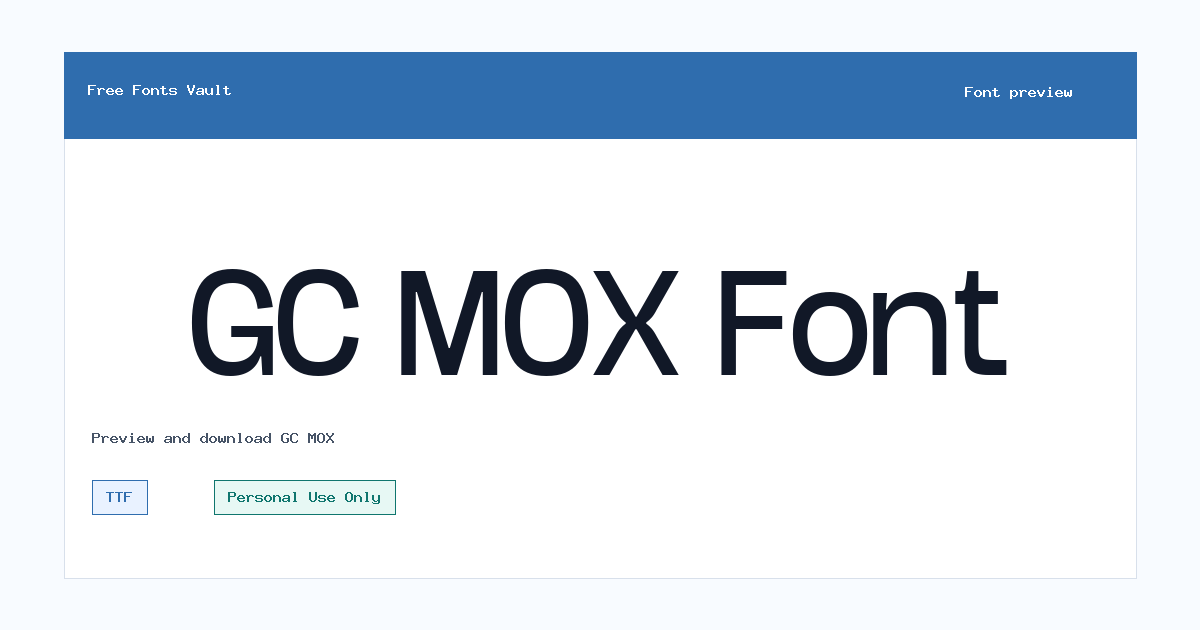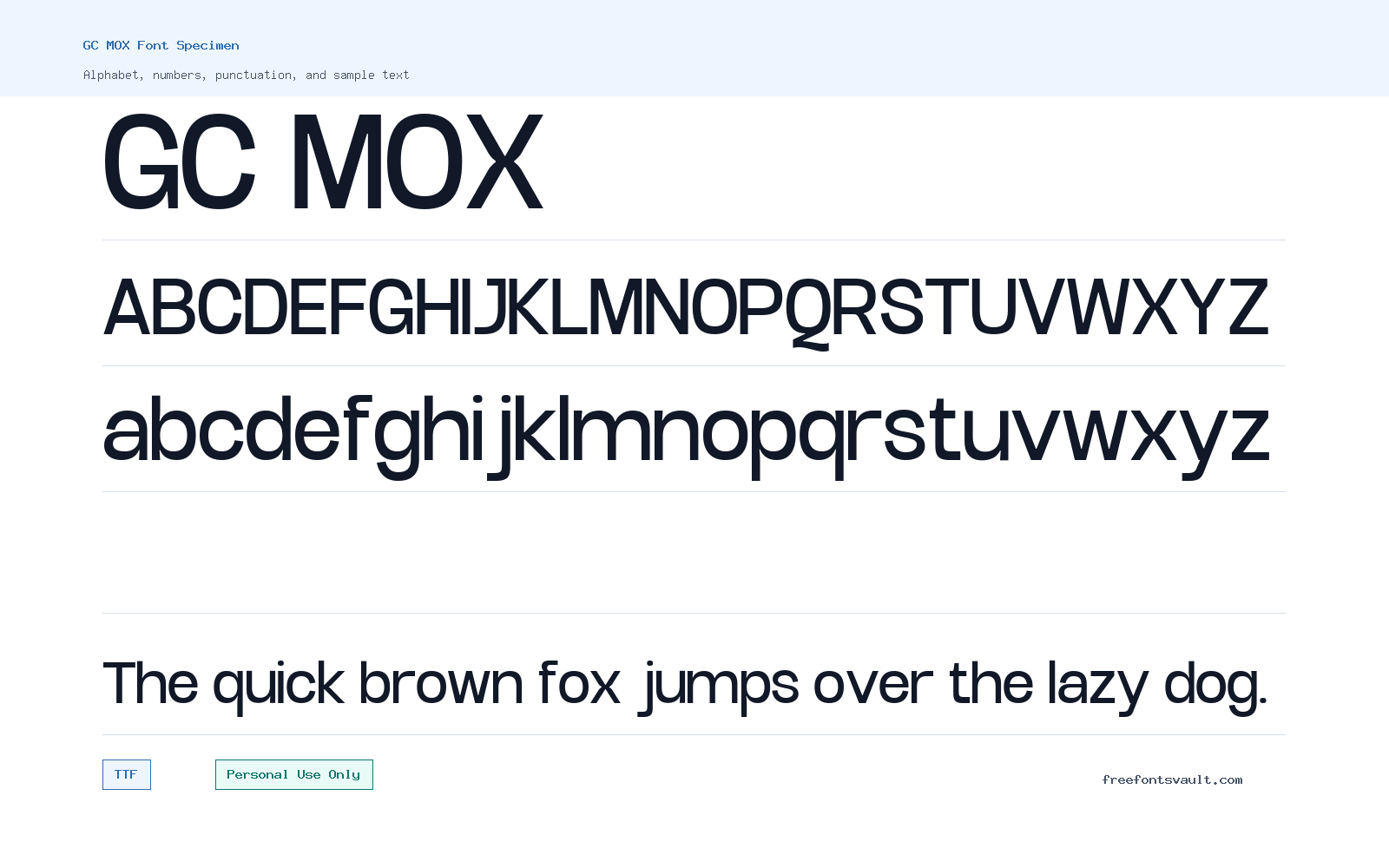
GC MOX
GC MOX font preview showing the family name
GC MOX Font
GC MOX font specimen showing alphabet, numbers, and sample text
• Designer Hanif Dwi Sulistyo of Glyphonic
• Foundry Glyphonic
GC MOX font.
GC MOX is a sans serif demo font family from Hanif Dwi Sulistyo of Glyphonic. It comes in multiple TTF weights, making it useful for testing clean headings, short text blocks, and simple layout ideas before you decide whether it fits your project.
About GC MOX Font
GC MOX has the practical structure of a sans serif family, with weights ranging from Thin and ExtraLight through Medium, SemiBold, Bold, and ExtraBold. That range gives you more control than a single-style download: lighter weights can feel open and quiet, while the heavier weights are better for short titles, buttons, posters, or display text that needs more presence.
• Includes light, regular, medium, semi-bold, bold, and extra-bold style options for preview testing
• Headlines, simple posters, social graphics, buttons, and short display text
GC MOX is credited to Hanif Dwi Sulistyo of Glyphonic, with Glyphonic listed as the foundry.
Who designed GC MOX?
GC MOX is credited to Hanif Dwi Sulistyo of Glyphonic.